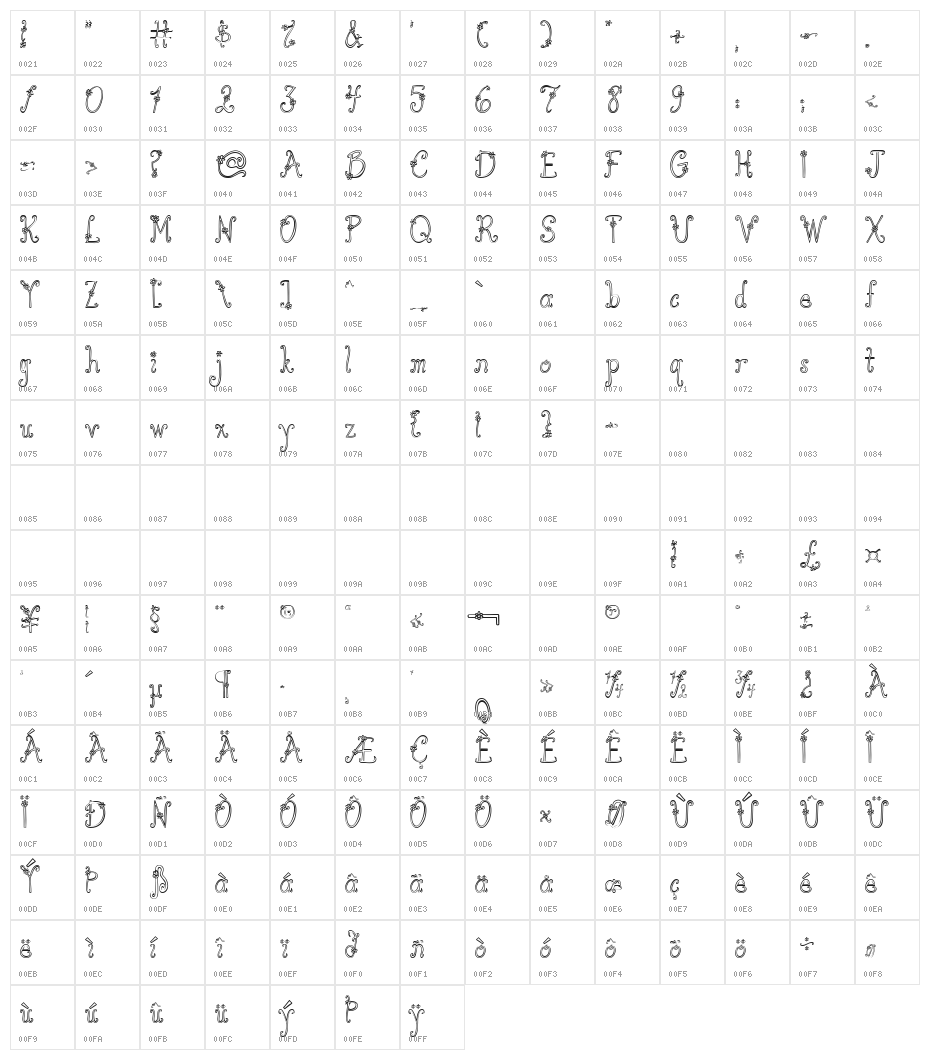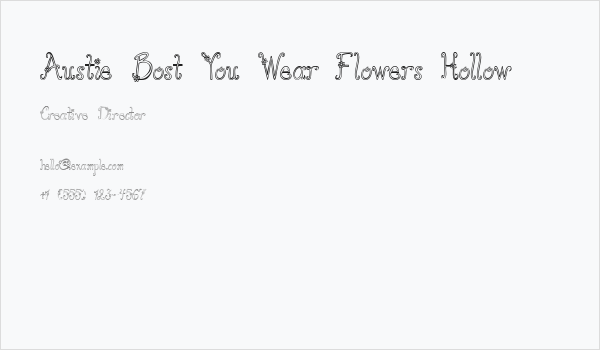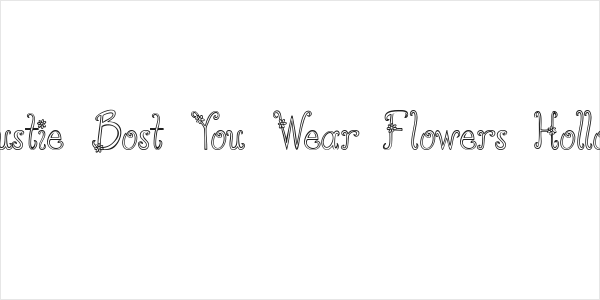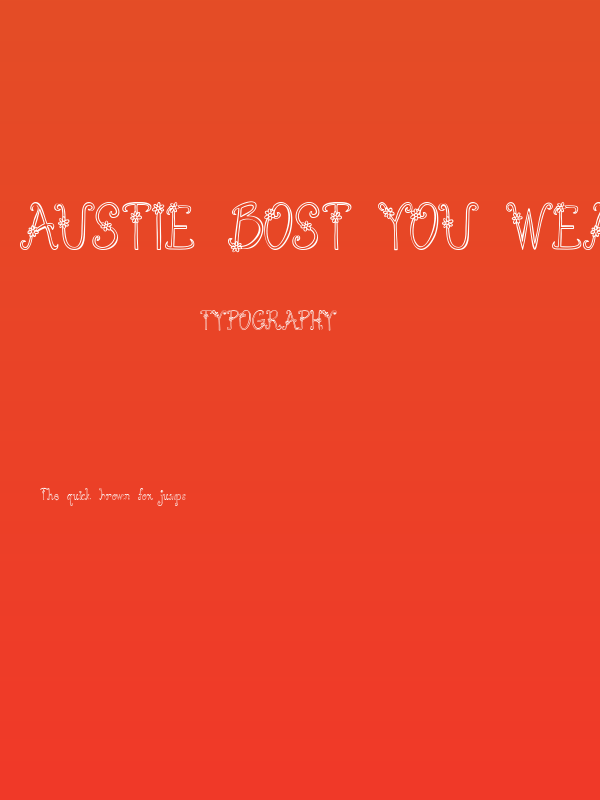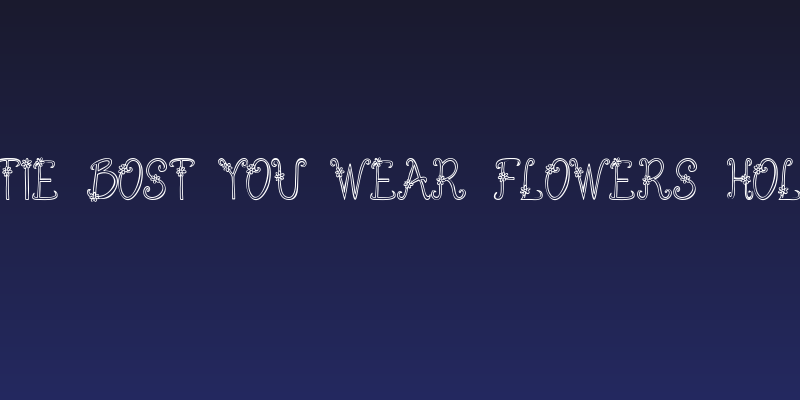
Austie Bost You Wear Flowers Hollow Font
Austie Bost You Wear Flowers Hollow Description
This playful and decorative font features whimsical, hollow letters adorned with small floral embellishments. Each character is outlined, giving it a light and airy feel, while the flowers add a touch of charm and creativity. The font maintains a consistent stroke width, contributing to its cohesive appearance. The uppercase and lowercase letters are well-balanced, and the numbers and special characters are designed with the same floral theme, ensuring a uniform look across all elements. This font is ideal for projects that require a fun and artistic touch, such as invitations, greeting cards, or children's book covers.
| Proposed Projects | Perfect for invitations, greeting cards, children's book covers, and playful branding. |